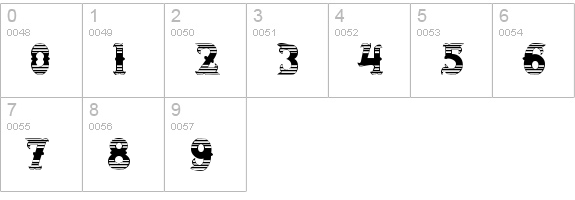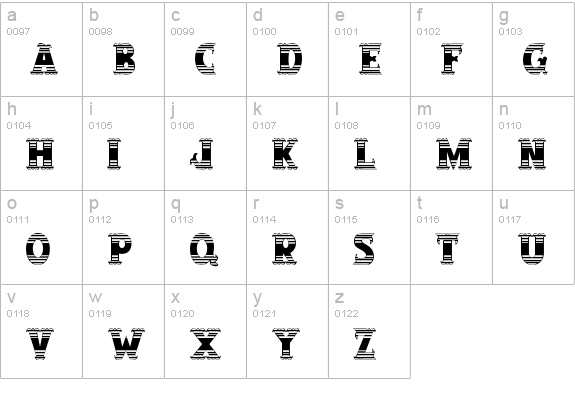
SalloonStripeEnds Font Details
SalloonStripeEnds is a captivating and versatile font that is sure to make a statement in any design project. With its unique mix of bold and elegant lines, this font is perfect for adding a touch of sophistication and style to your creations. The distinguishing feature of SalloonStripeEnds is its striking combination of sharp edges and flowing curves, creating a visually appealing contrast that is both eye-catching and modern. Whether you are designing a logo, poster, or website, this font will effortlessly elevate your work to new heights. What sets SalloonStripeEnds apart is not only its exceptional design, but also its accessibility. This font is available for free download at FontsMarket.com, allowing you to easily incorporate it into your projects without any additional cost. With SalloonStripeEnds, you have the freedom to explore your creativity and experiment with different typographic styles. Its clean and clear letterforms ensure readability across various mediums and sizes, making it suitable for both print and digital applications. Whether you are a professional designer or a hobbyist, SalloonStripeEnds is a must-have font in your collection. Its versatility and elegance make it suitable for a wide range of projects, from branding and advertising to invitations and social media graphics. Download SalloonStripeEnds for free at FontsMarket.com and let this captivating font add a touch of sophistication and creativity to your designs.